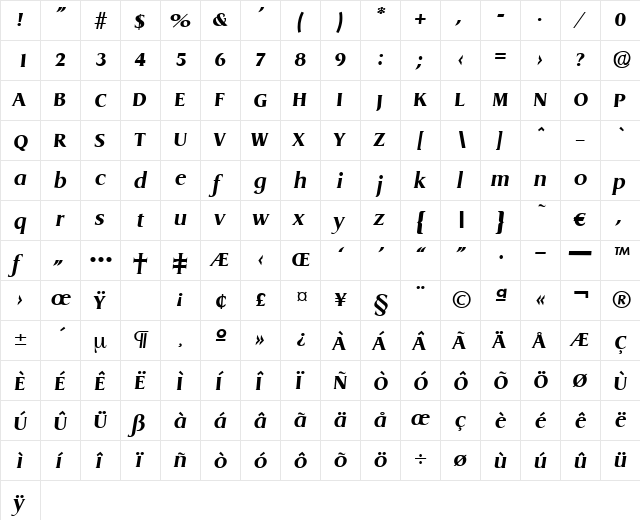
Dragon-BoldIta Regular Font Preview
Dragon-BoldIta Regular
Dragon-BoldIta Regular Font Details
Design Context for Dragon-BoldIta Typeface
Dragon-BoldIta offers clean, dependable letterforms without strong stylistic allegiance, making it a practical choice for designers who need flexibility. The heavy weight commands attention and anchors typographic hierarchies.